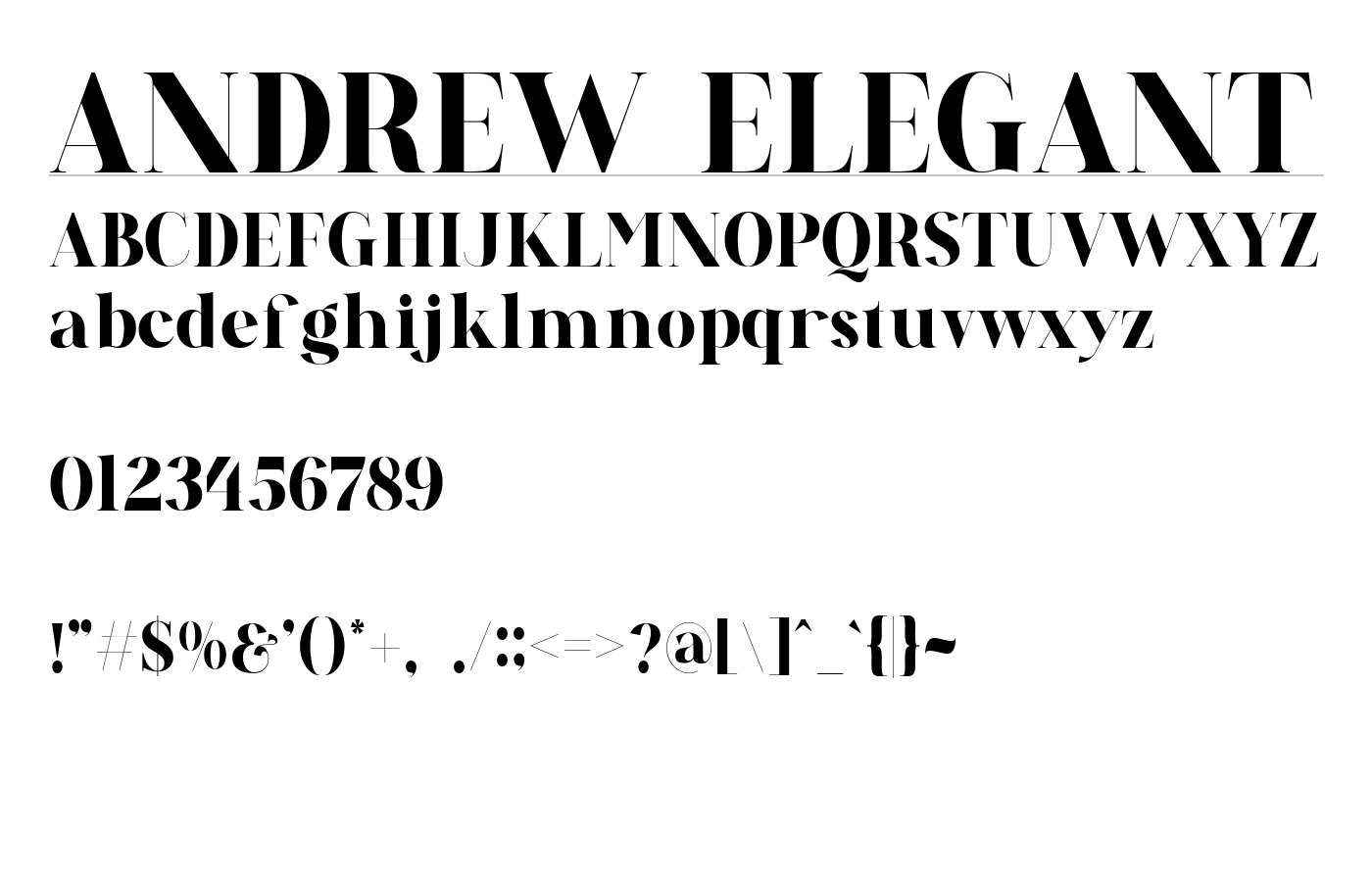
ANDREW ELEGANT is a high-contrast serif font with a refined and sophisticated style, characterized by its thin, delicate serifs and bold vertical strokes. Its elegant letterforms, featuring a mix of sharp and smooth curves, make it ideal for luxury branding, fashion, and editorial headlines where a touch of classic glamour is desired. This font works best in display settings, bringing a sense of prestige and timeless beauty to logos, posters, and upscale packaging.
ANDREW ELEGANT Font
About ANDREW ELEGANT Font